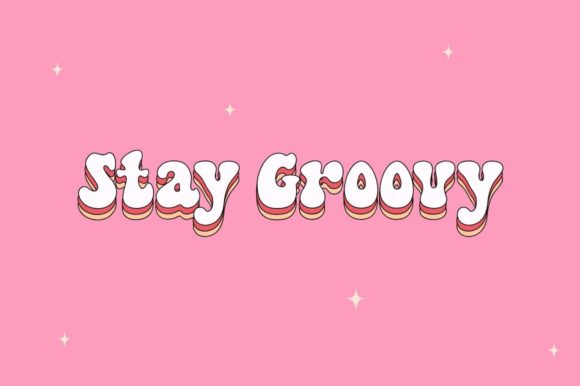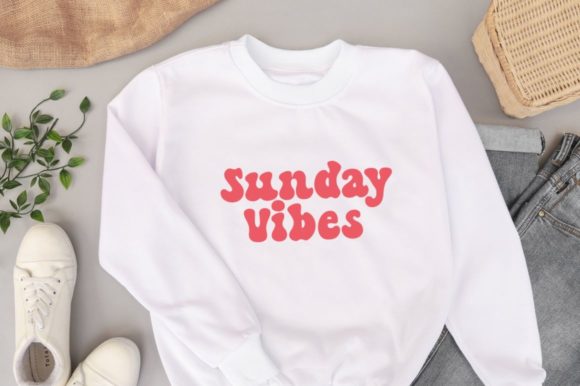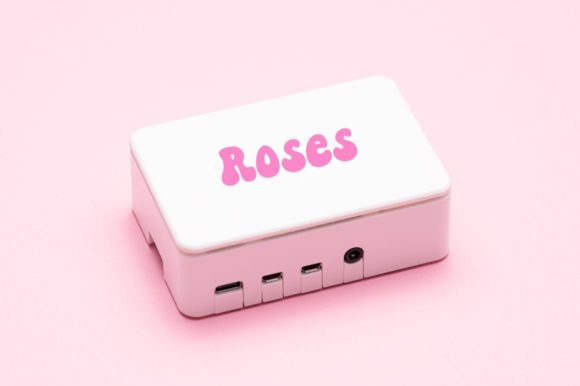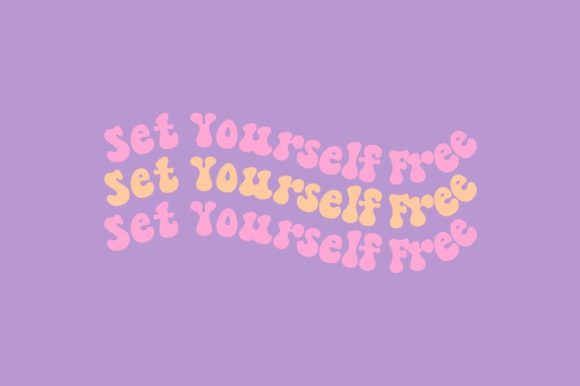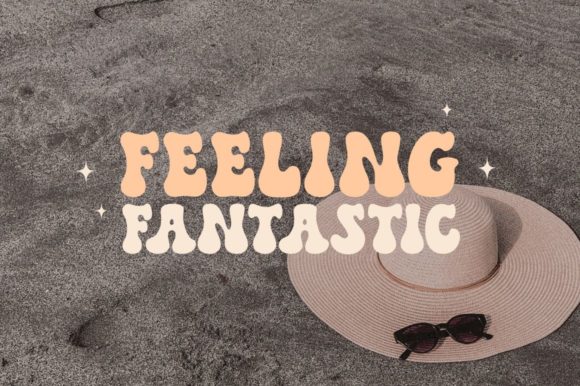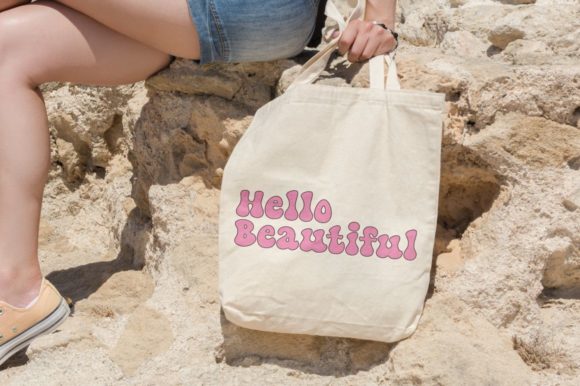
The Retro Charm of Bloom Lover Font: A Designer’s Delight
I’ll never forget the time I was working on a vintage-themed project for a client, and I just couldn’t find the right font to capture that groovy, retro vibe. I scoured the internet, tried out dozens of fonts, but nothing seemed quite right. That was until I stumbled upon Bloom Lover Font. It was like a breath of fresh air – bold, playful, and full of personality. In this article, I’ll share my experience with Bloom Lover Font, and explore its features, uses, and alternatives.
An Honest Review of Bloom Lover Font
• ✨ Retro and Groovy Style: Bloom Lover Font has a unique, nostalgic charm that’s perfect for creating vintage-inspired designs.
• ✅ Bold and Playful: This font is not for the faint of heart – it’s loud, bold, and makes a statement.
• 💻 Versatile: Bloom Lover Font can be used for a wide range of design projects, from social media graphics to logos, prints, and more.
While Bloom Lover Font is an amazing font, it’s not without its quirks. For example:
• 🤔 Limited Legibility: Due to its bold and playful nature, Bloom Lover Font may not be the best choice for body text or long paragraphs.
• ⚠️ Glyph Limitations: Some users have reported that the font may not have as many glyphs as they would like, which can limit its use in certain design projects.
The Backstory of Bloom Lover Font
Bloom Lover Font was designed by a team of creatives who wanted to capture the essence of retro and groovy style concepts. Inspired by the iconic designs of the 60s and 70s, they created a font that’s both nostalgic and modern. Whether you’re a designer, crafter, or creative hobbyist, Bloom Lover Font is sure to bring a touch of vintage charm to your projects.
Font Name Bloom Lover Font
Author Reyrey Blue
Bloom Lover Font is a modern, bold, and playful display font with retro and groovy style concepts.
Bloom Lover Font is perfect for a wide range of design projects, including retro designs, procreate designs, social media graphics, logos, prints, Cricut projects, svg designs, and more.